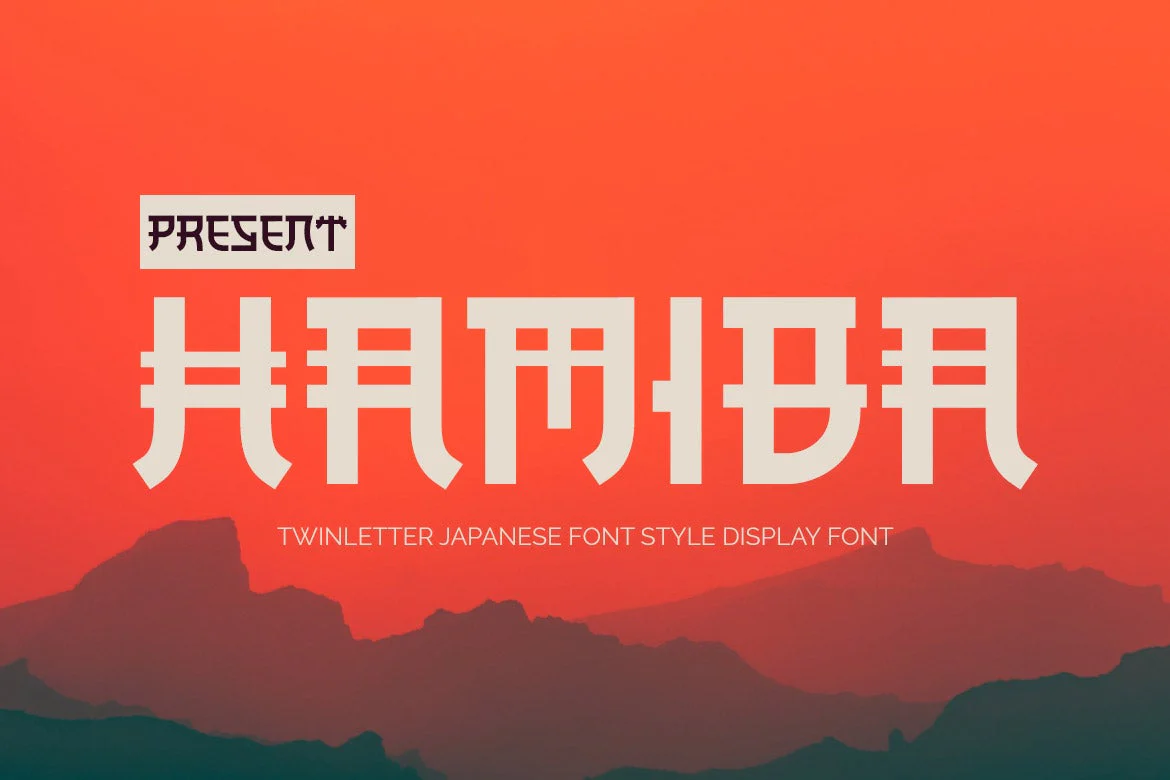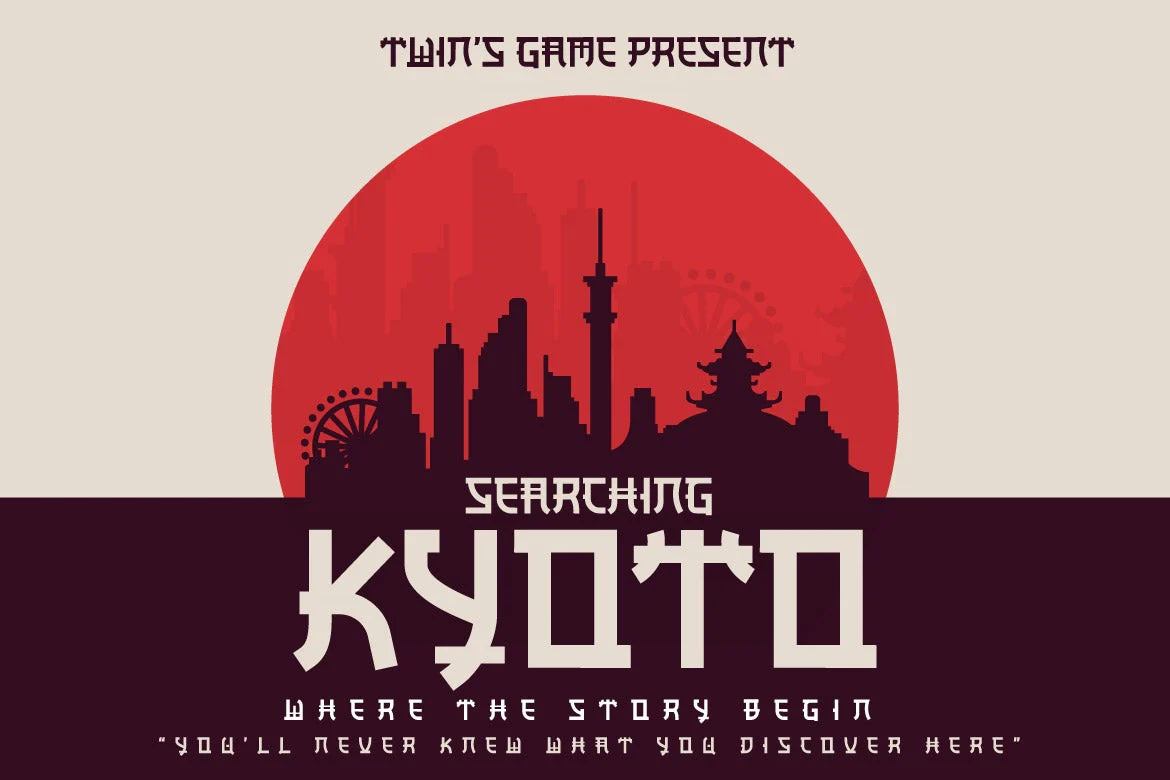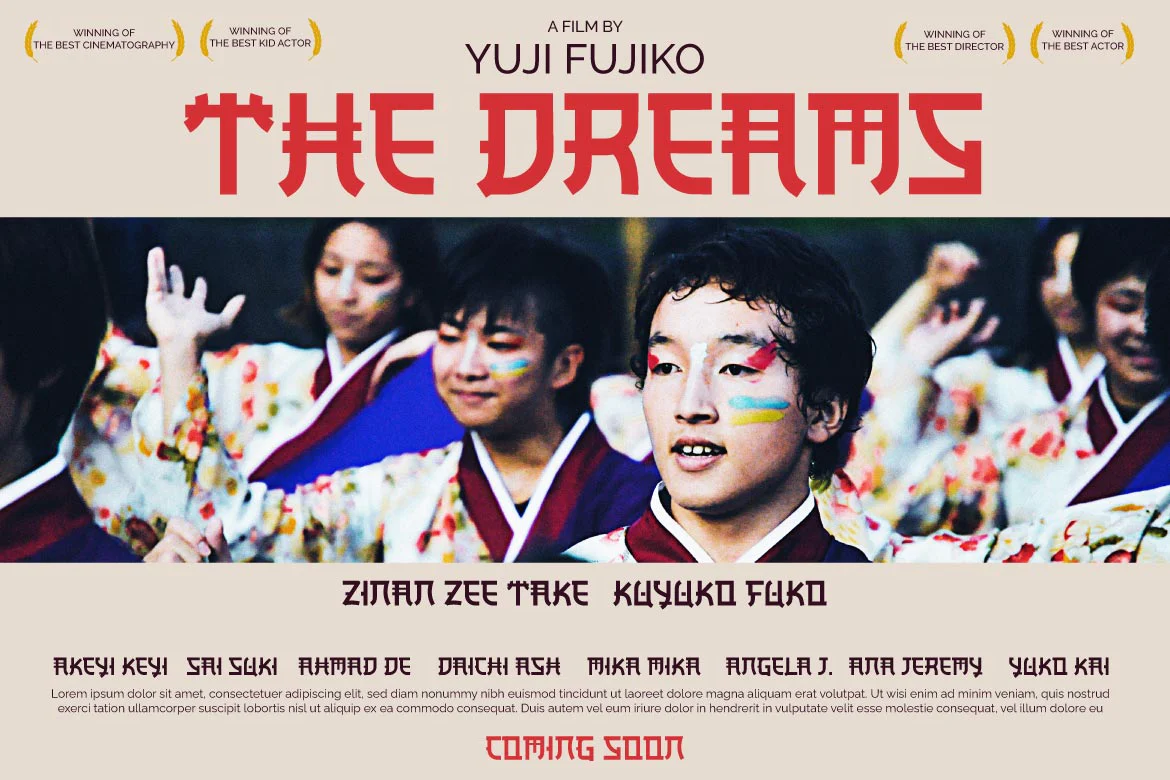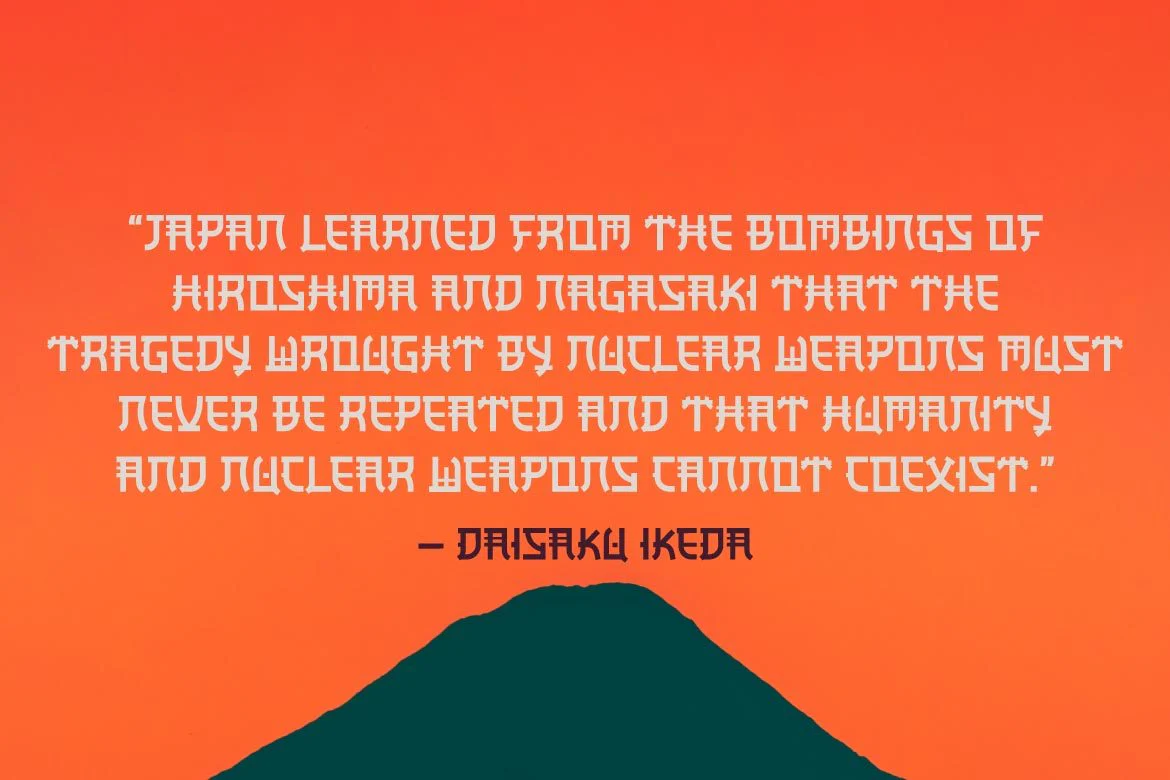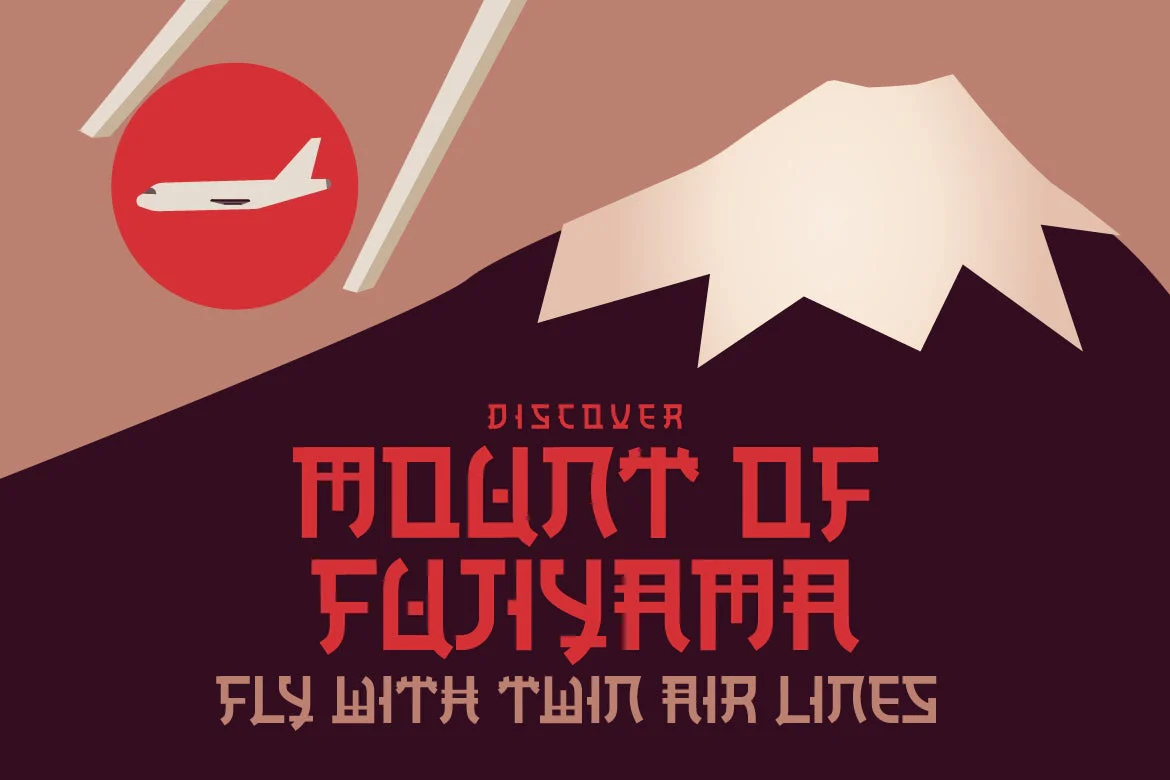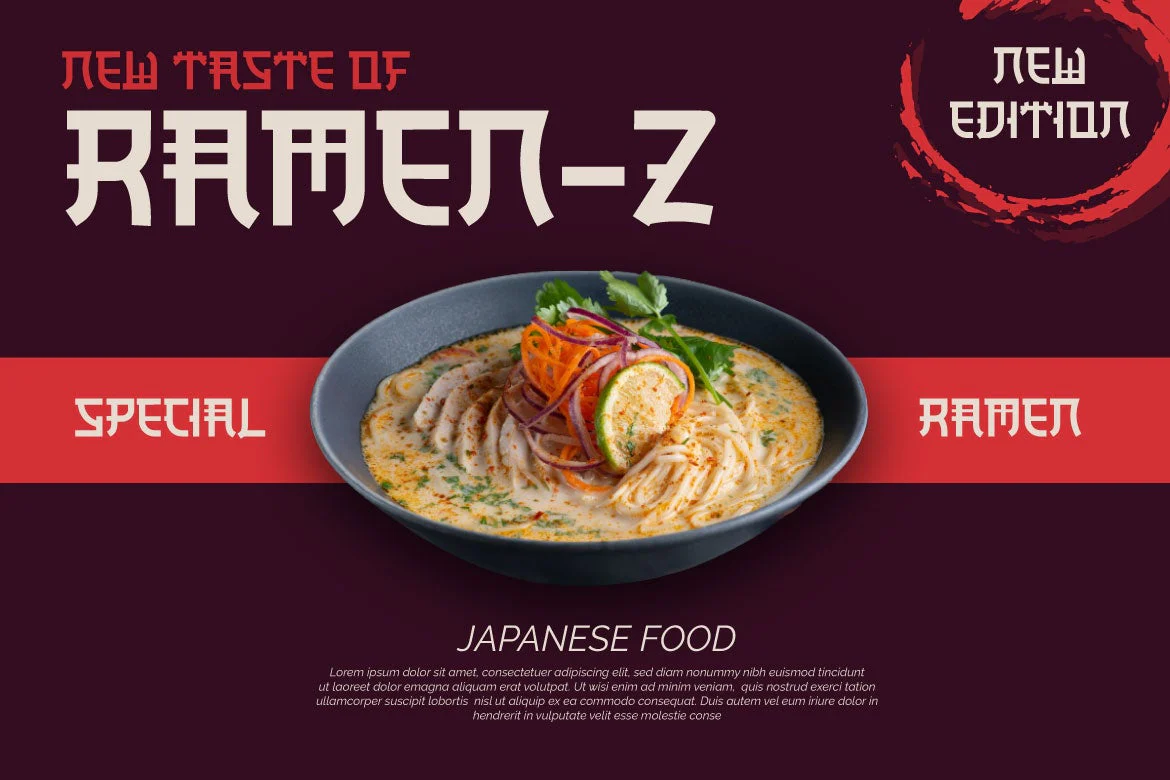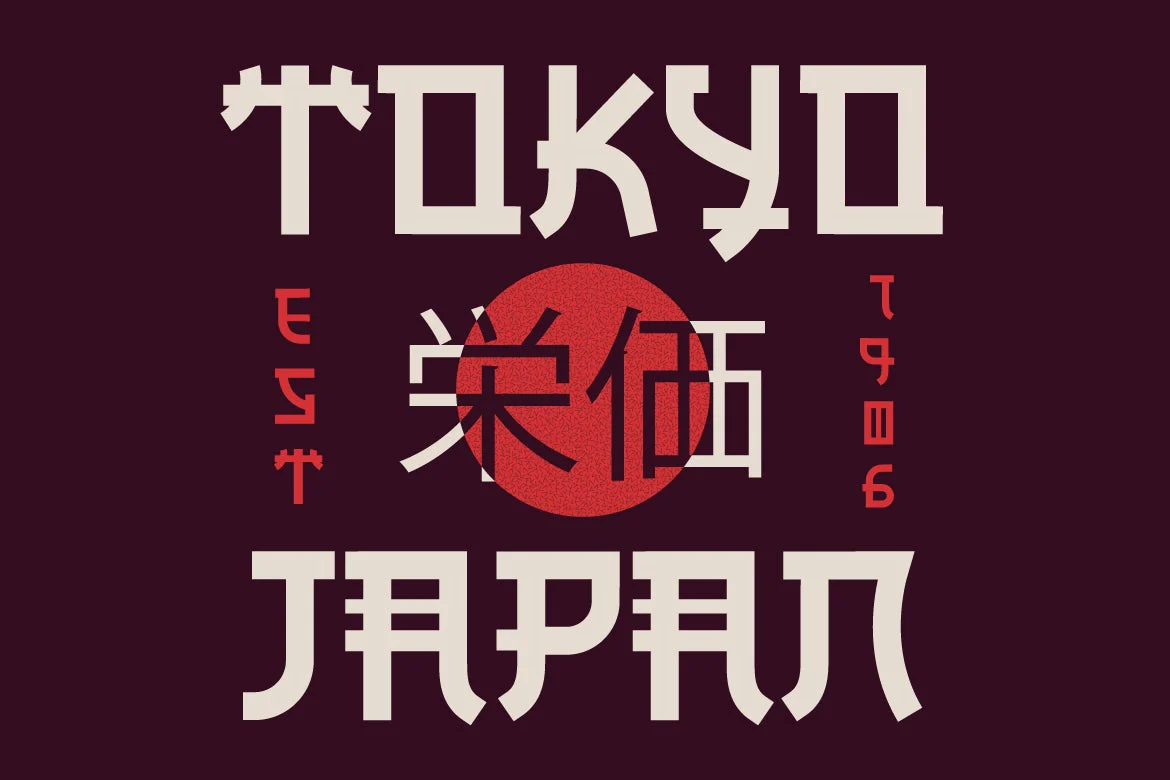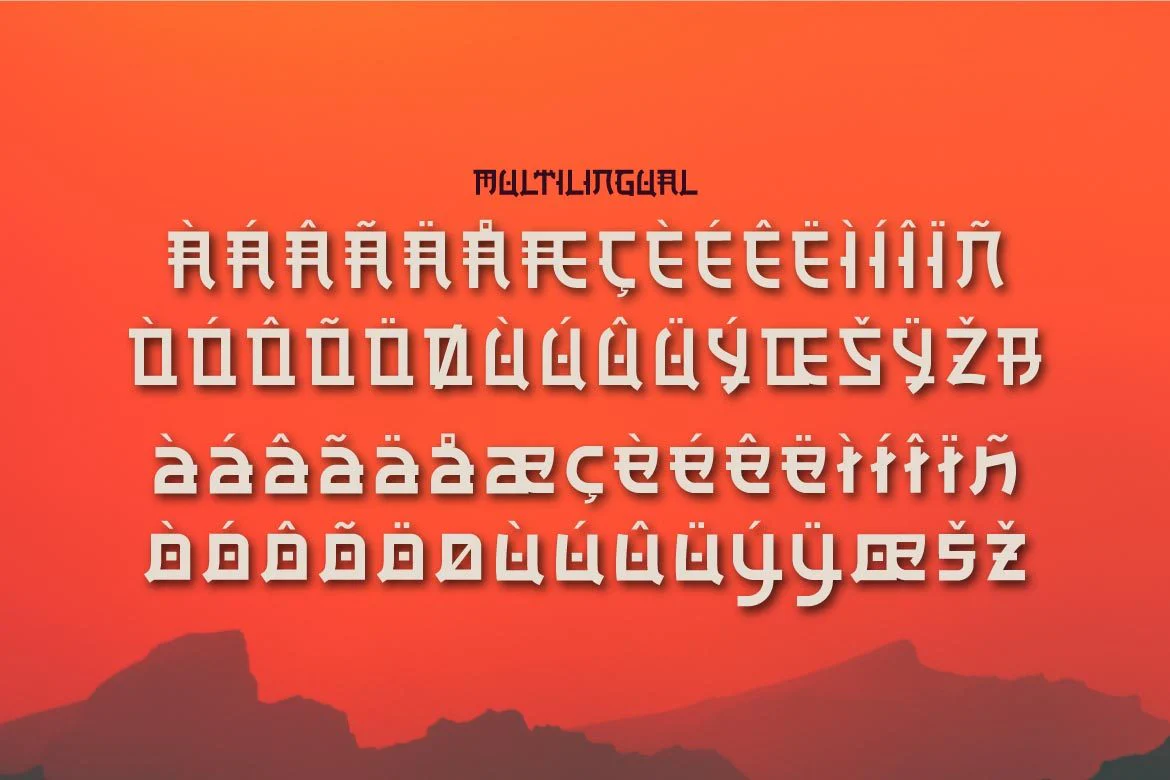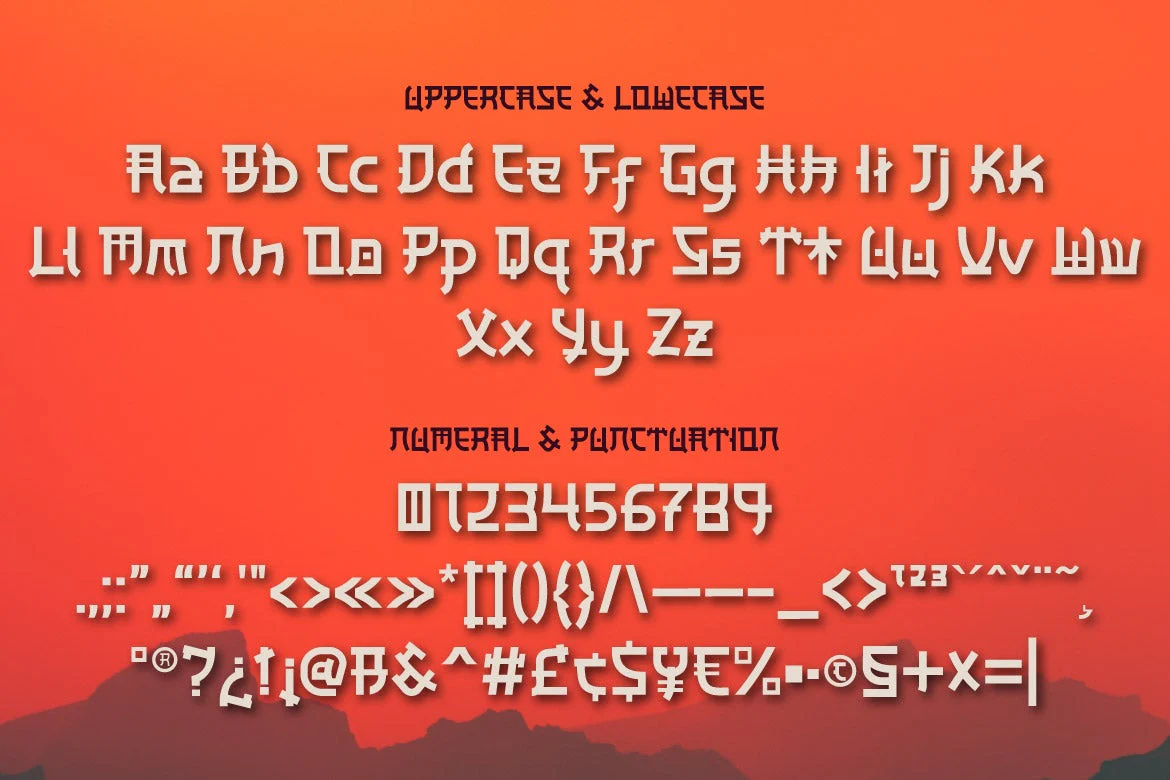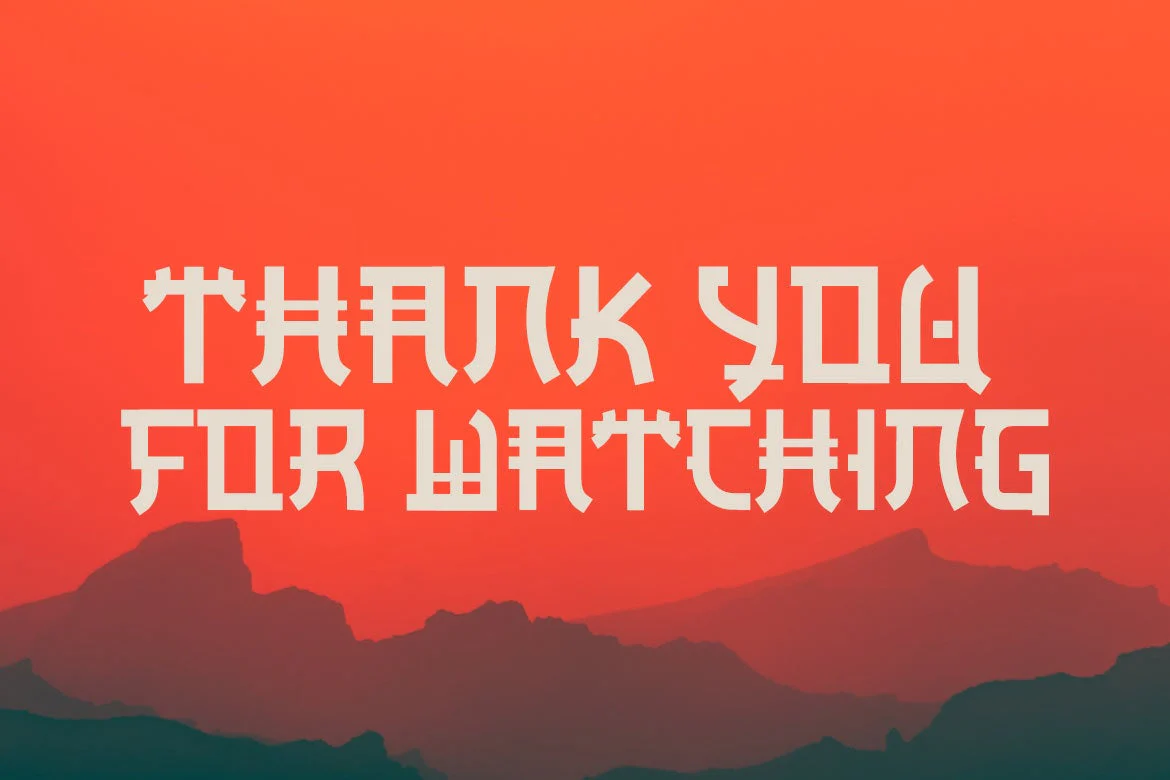
HAMIBA - Japanese style font
HAMIBA is a display font with a dramatic letterform and a Japanese flair.
Imagine having a project with a charismatic, original, and exquisite appearance that many people remember. You may use this Asian font anyplace for any type of project.
If you utilize this font in your project, you can easily achieve all of this.
Logotypes, food banners, branding, brochure, posters, movie titles, book titles, quotes, and more may all benefit from this font.
Of course, using this font in your various design projects will make them excellent and outstanding; many viewers are drawn to the striking and unusual graphic display.
Start utilizing this typeface in your projects to make them stand out.
HAMIBA is a display font with a dramatic letterform and a Japanese flair.
Imagine having a project with a charismatic, original, and exquisite appearance that many people remember. You may use this Asian font anyplace for any type of project.
If you utilize this font in your project, you can easily achieve all of this.
Logotypes, food banners, branding, brochure, posters, movie titles, book titles, quotes, and more may all benefit from this font.
Of course, using this font in your various design projects will make them excellent and outstanding; many viewers are drawn to the striking and unusual graphic display.
Start utilizing this typeface in your projects to make them stand out.